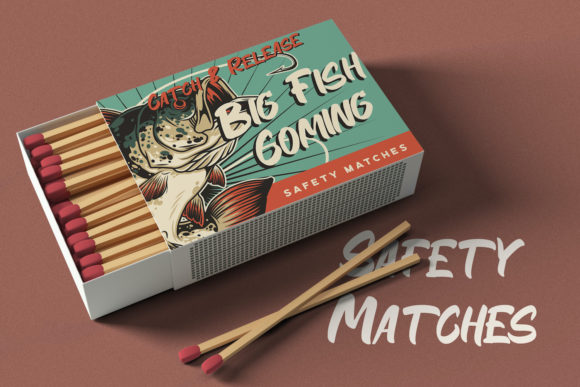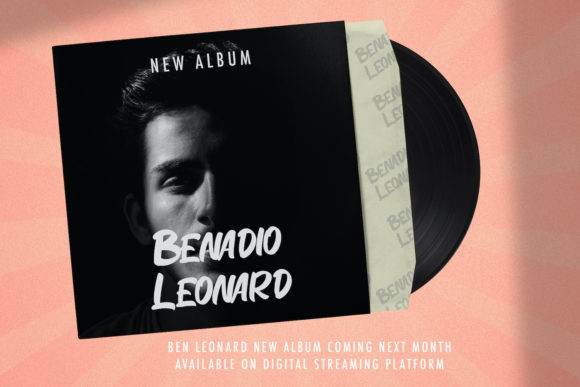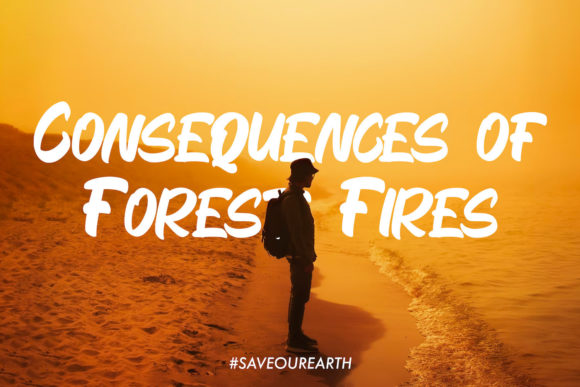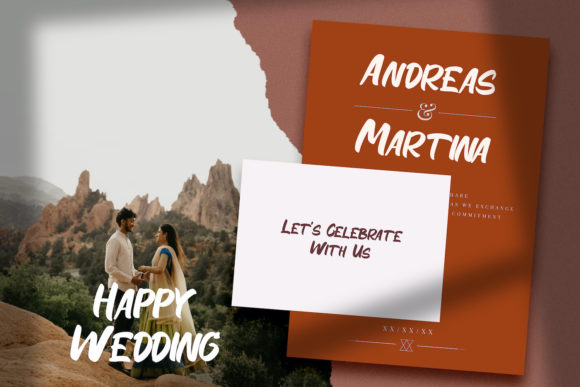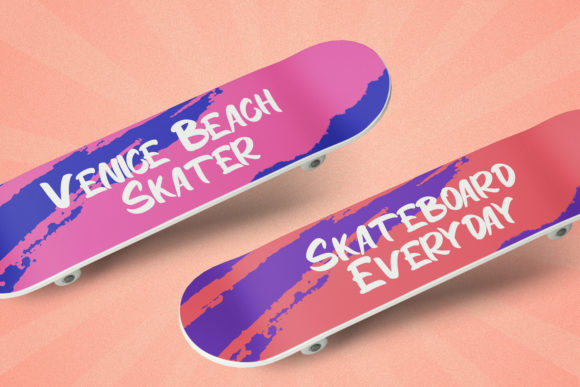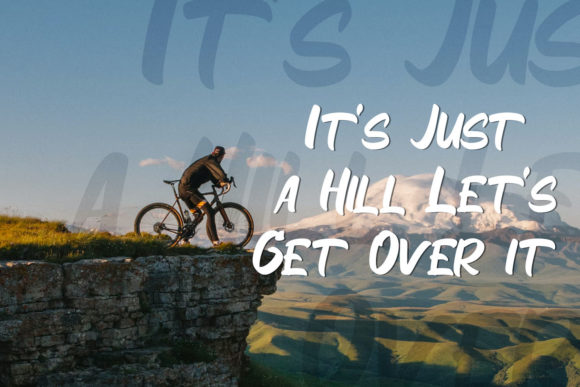
Introduction to Meizury Font
Meizury is a delicate, elegant, and free-flowing display font.
Its beautiful and well-balanced characters make it the perfect match for a wide pool of designs Add it to your most creative ideas, and notice how it makes them come alive.
Key Features of Meizury Font
Why Choose Meizury Font?